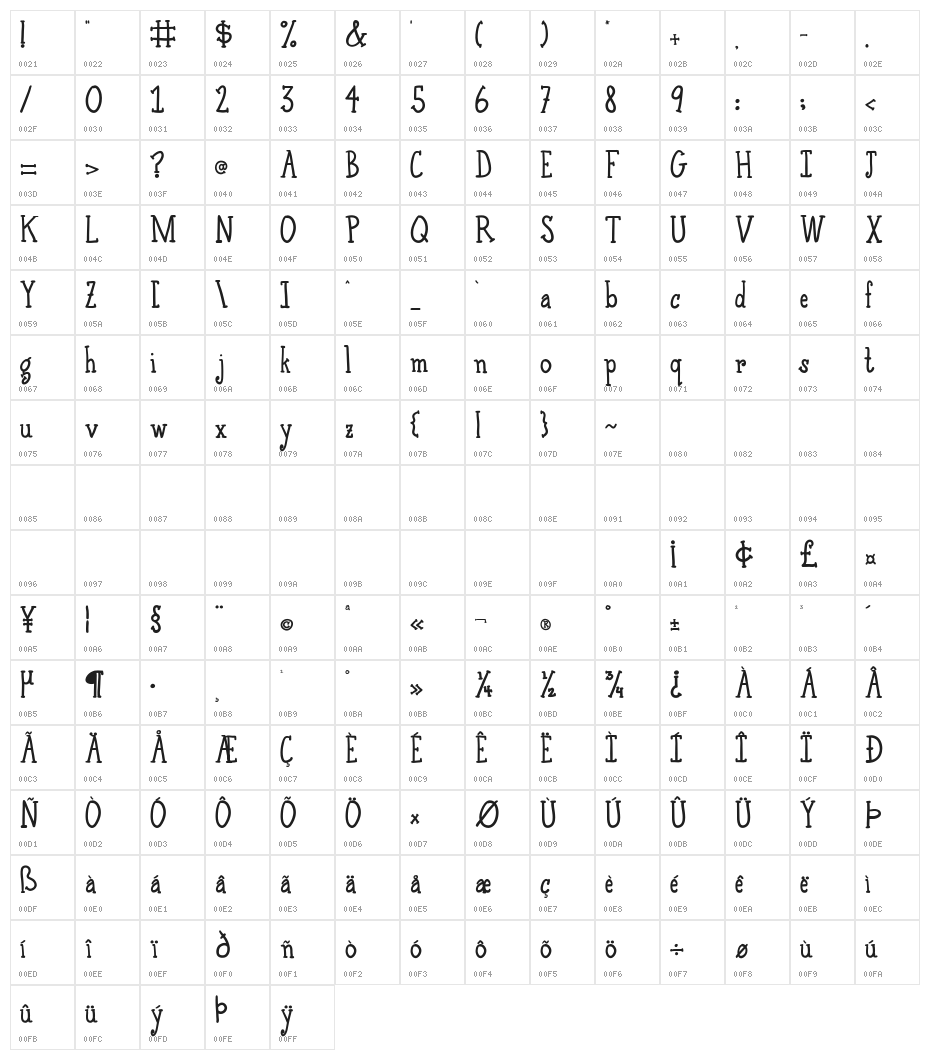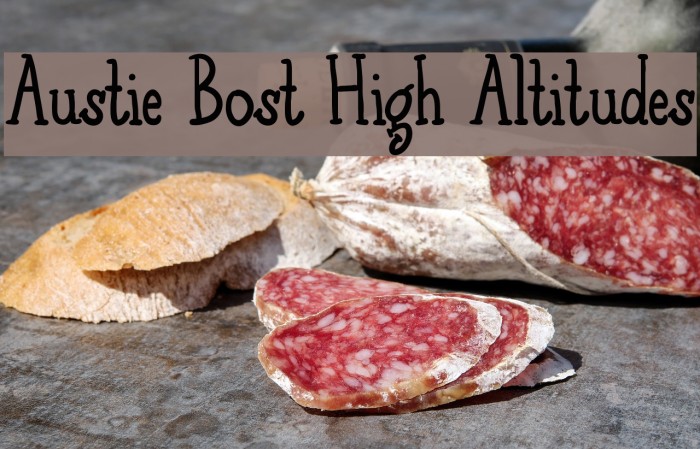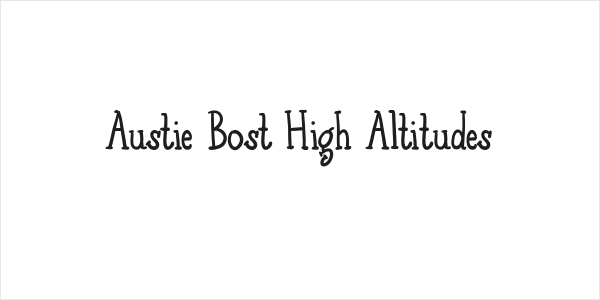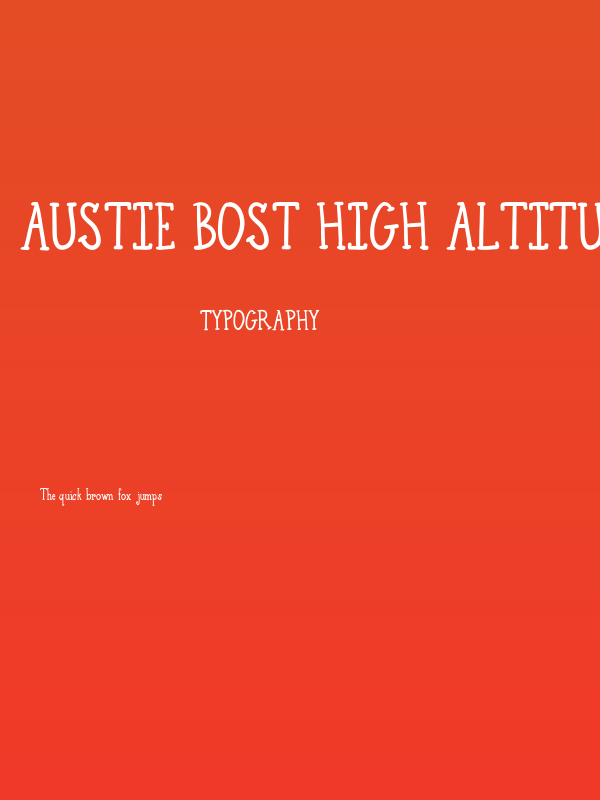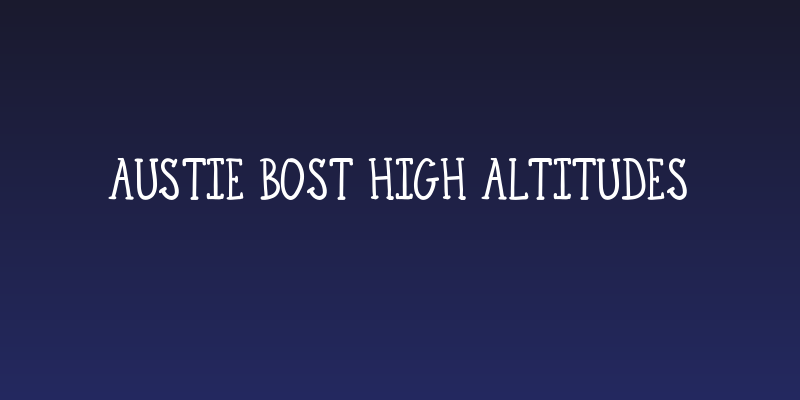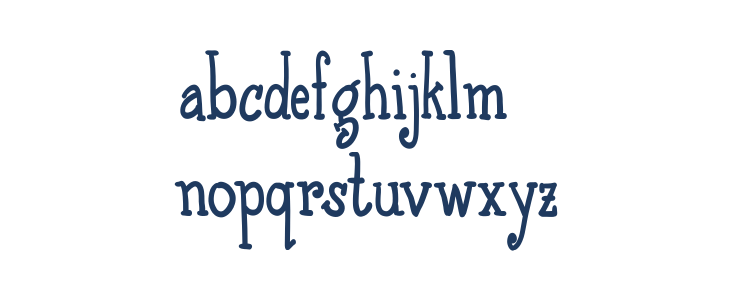
Austie Bost High Altitudes Font
Austie Bost High Altitudes Description
This font features a playful and whimsical style with a hand-drawn appearance. The characters are slightly irregular, adding a charming and approachable feel. The uppercase letters are tall and narrow, while the lowercase letters maintain a consistent height, creating a harmonious balance. The numbers and special characters follow the same playful design, making the font versatile for various creative projects. The strokes are consistent in width, providing a uniform look across all characters. This font is ideal for projects that require a friendly and informal touch.
| Proposed Projects | Perfect for children's books, greeting cards, playful branding, and DIY craft projects. |